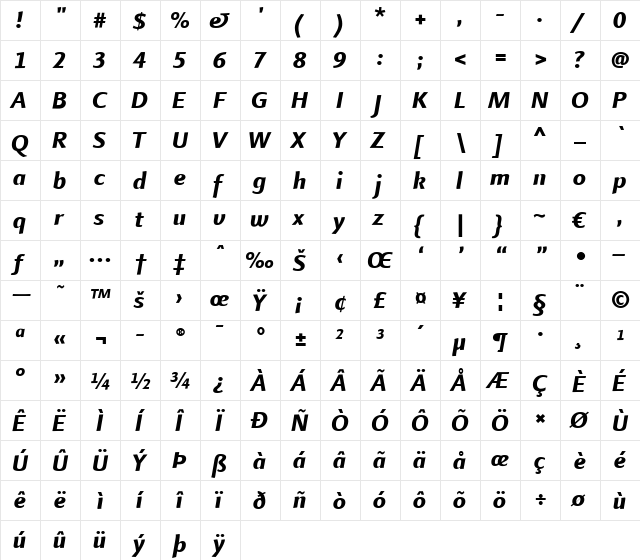
LTFinnegan Medium Bold Italic Font Preview
Design Context for LTFinnegan Medium Typeface
LTFinnegan Medium offers clean, dependable letterforms without strong stylistic allegiance, making it a practical choice for designers who need flexibility. Its italic angle brings a sense of urgency and motion to the letterforms. The heavy weight commands attention and anchors typographic hierarchies.
Pro Tip: Try LTFinnegan Medium for annotation and caption copy alongside an upright companion — the contrast in angle creates a dynamic but ordered typographic system.